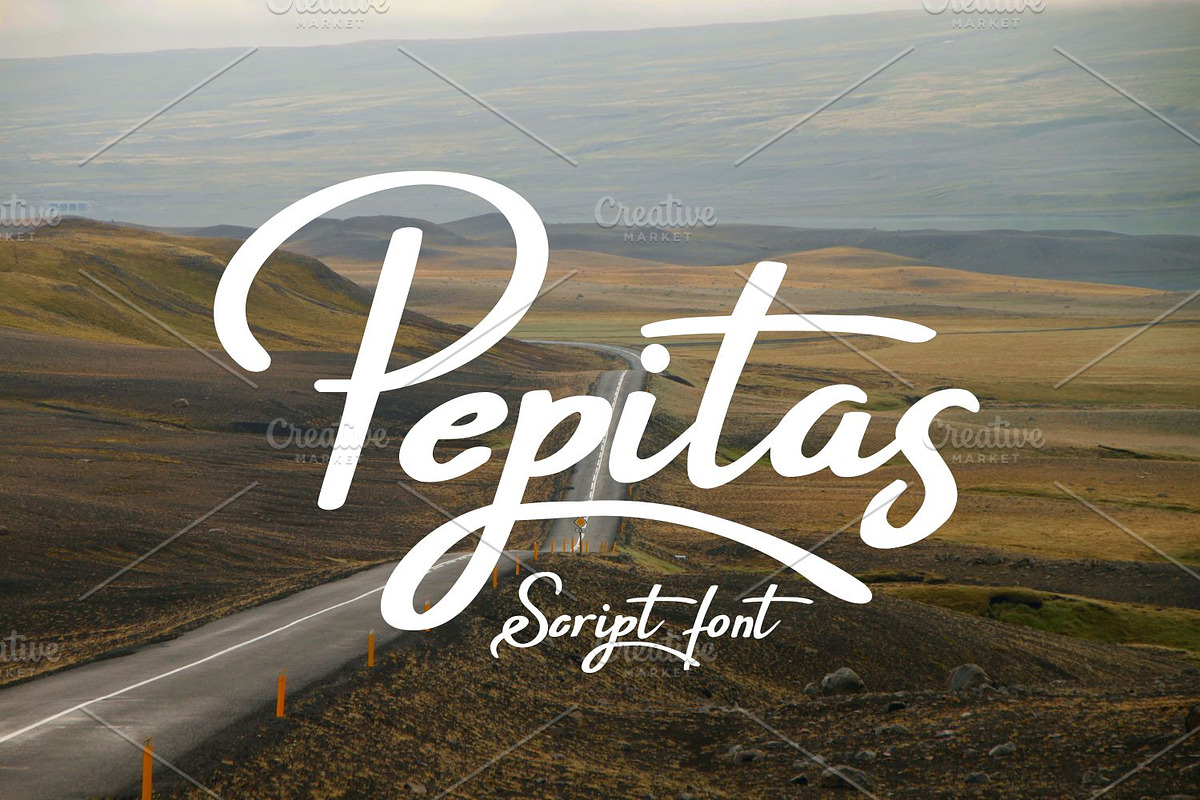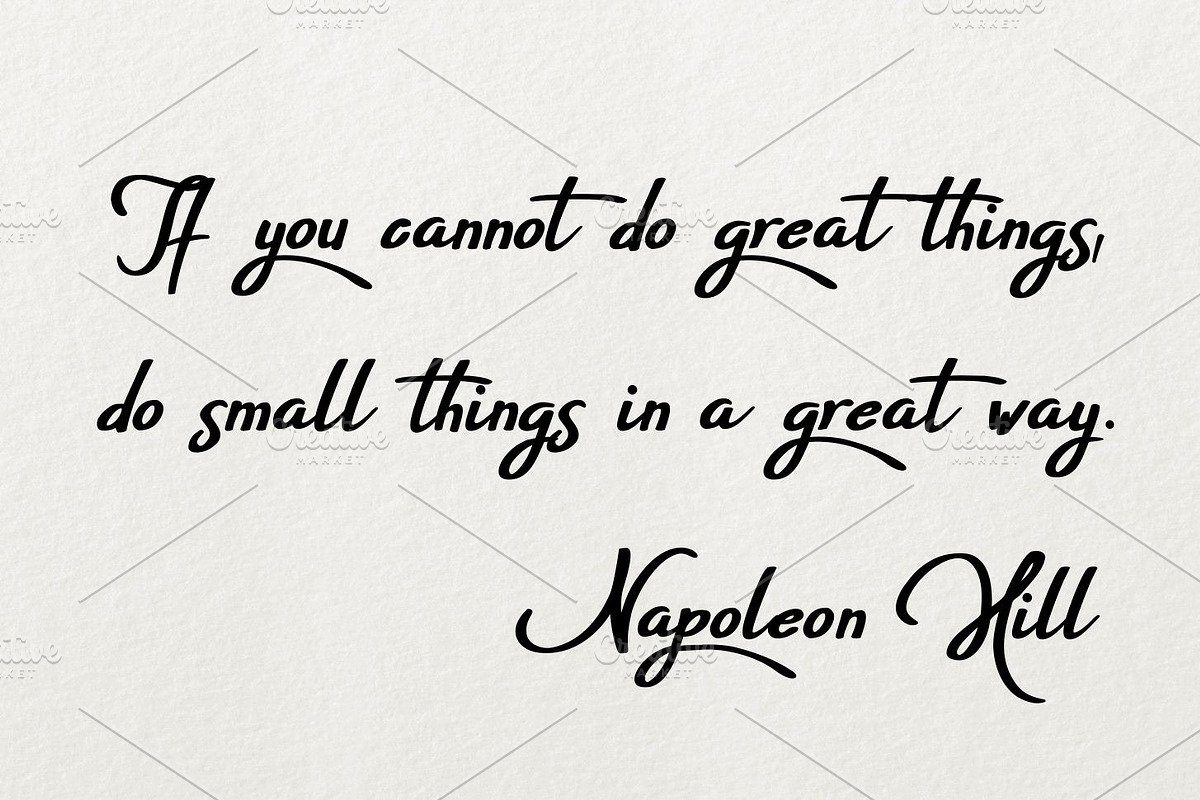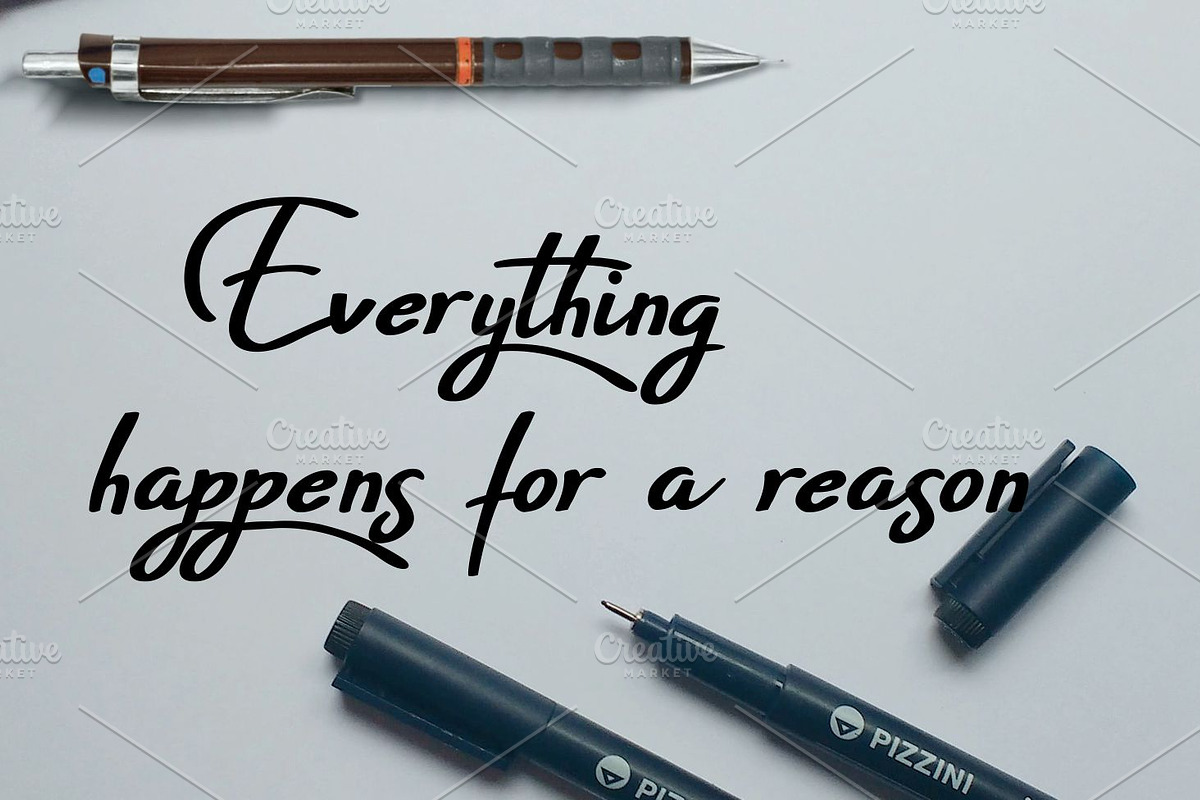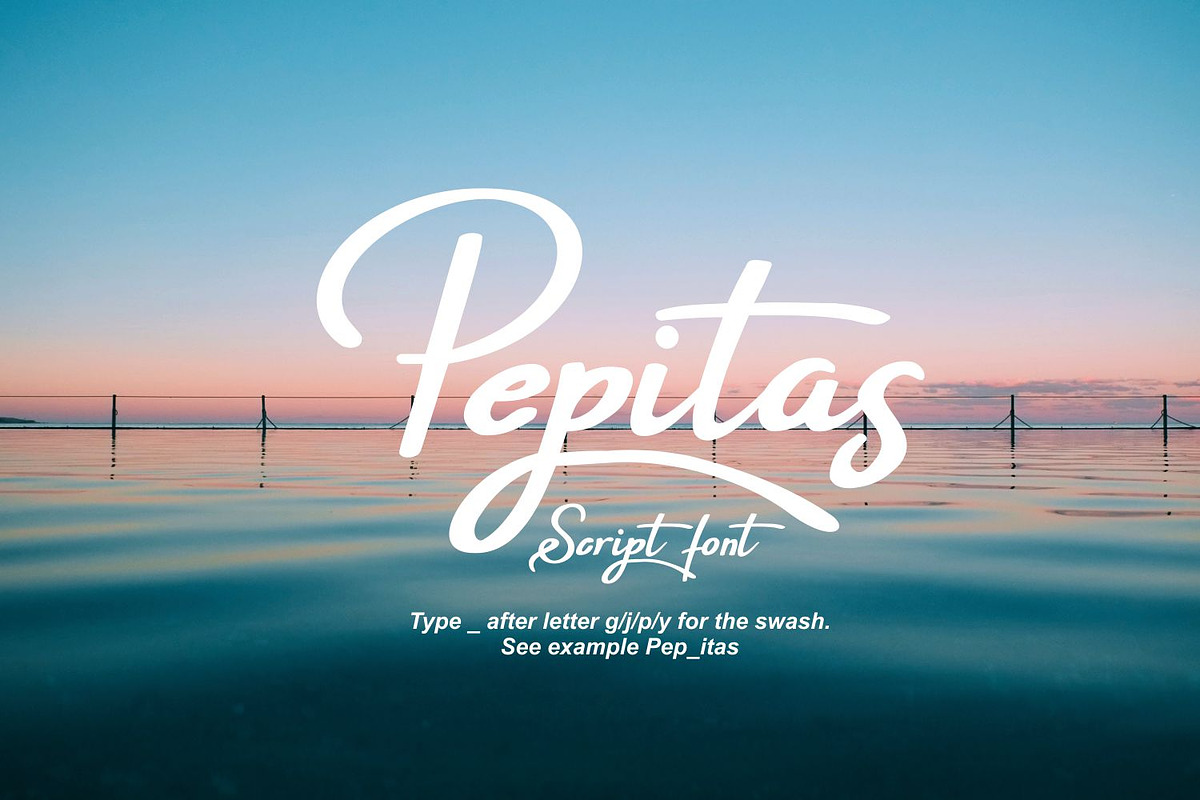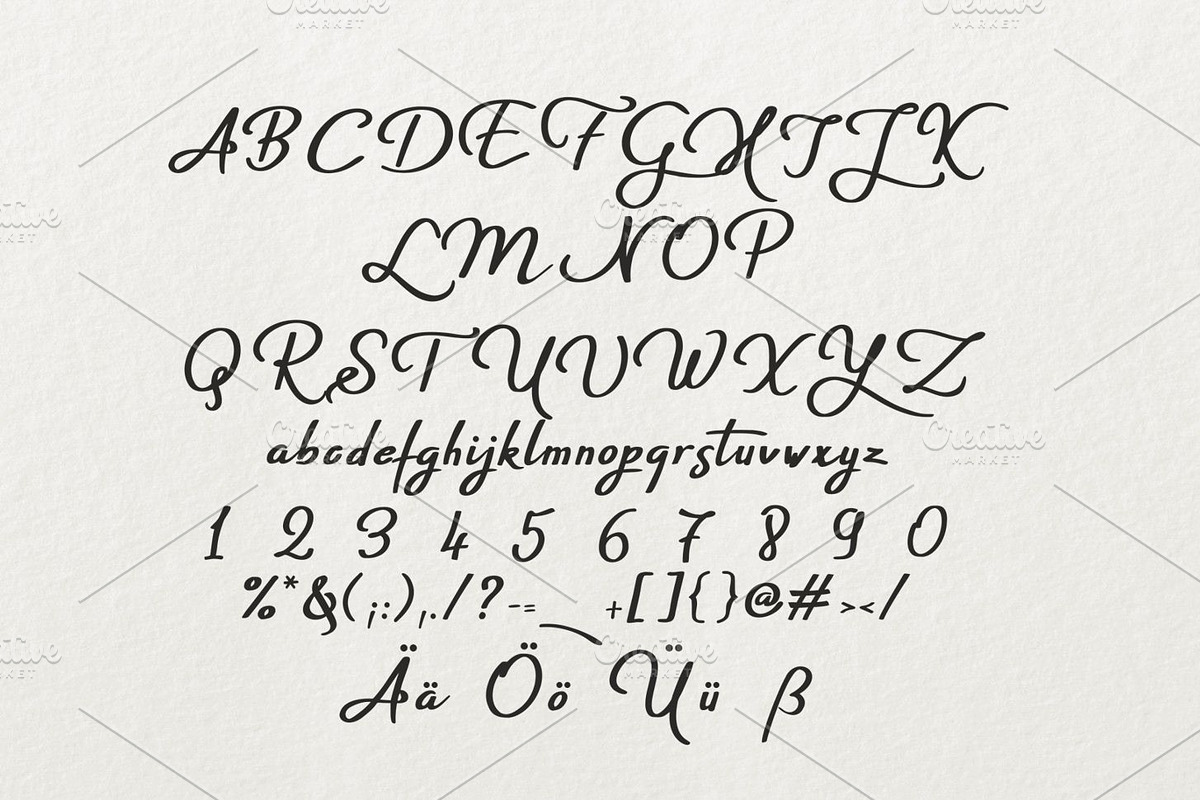
Pepitas
Pepitas is a handwritten font which is suitable for greeting cards, branding materials, business cards, quotes, posters, and more!
Type after letter g/j/p/y to get the swash. See example: Pepitas
Why Pepitas is worth a look
Pepitas by Digital Typeface Studio fits naturally into Branding, posters, packaging, typography.